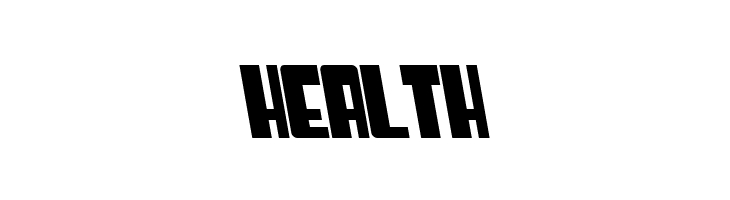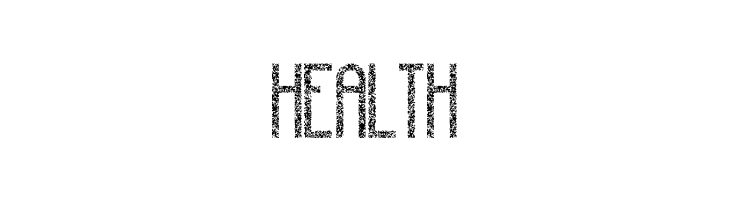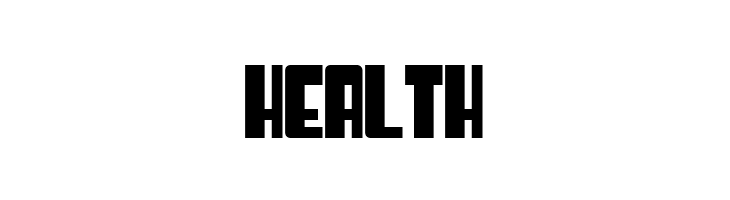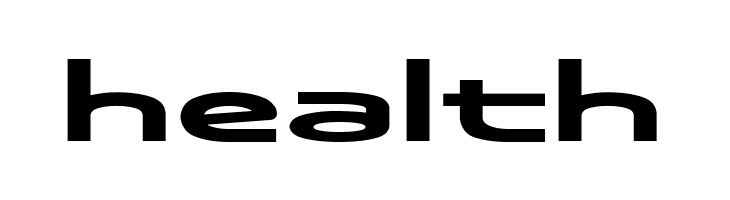
A bold, oblique font with a modern and assertive style.
A bold, distressed font with a grungy, textured appearance.
A bold, modern sans-serif font with clean, uniform strokes.
A sleek, modern font with thin, elongated letterforms and clean lines.
A modern, bold, and geometric font with a futuristic style.